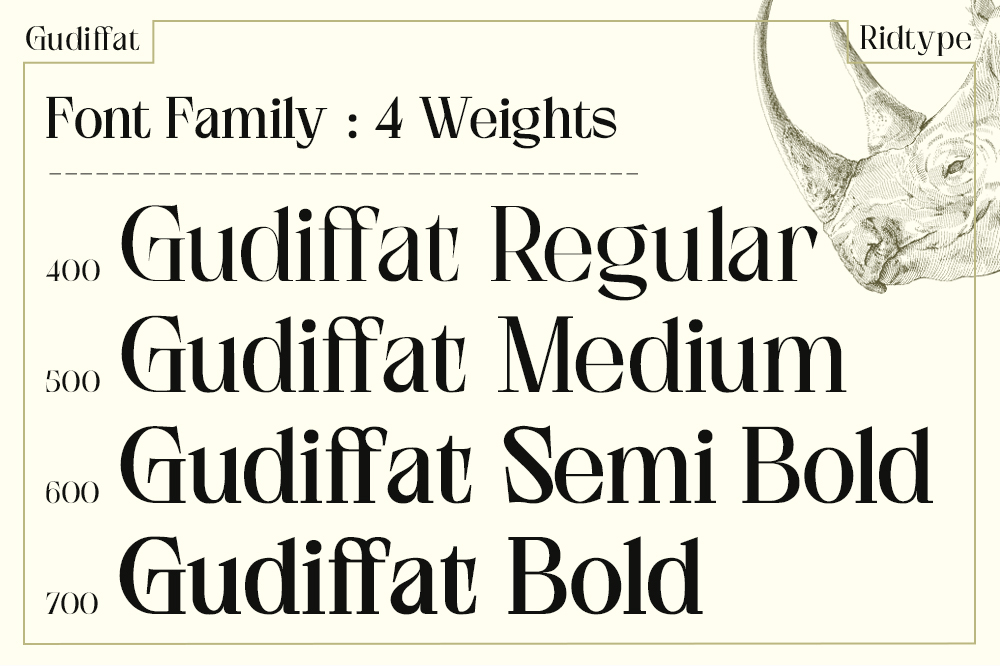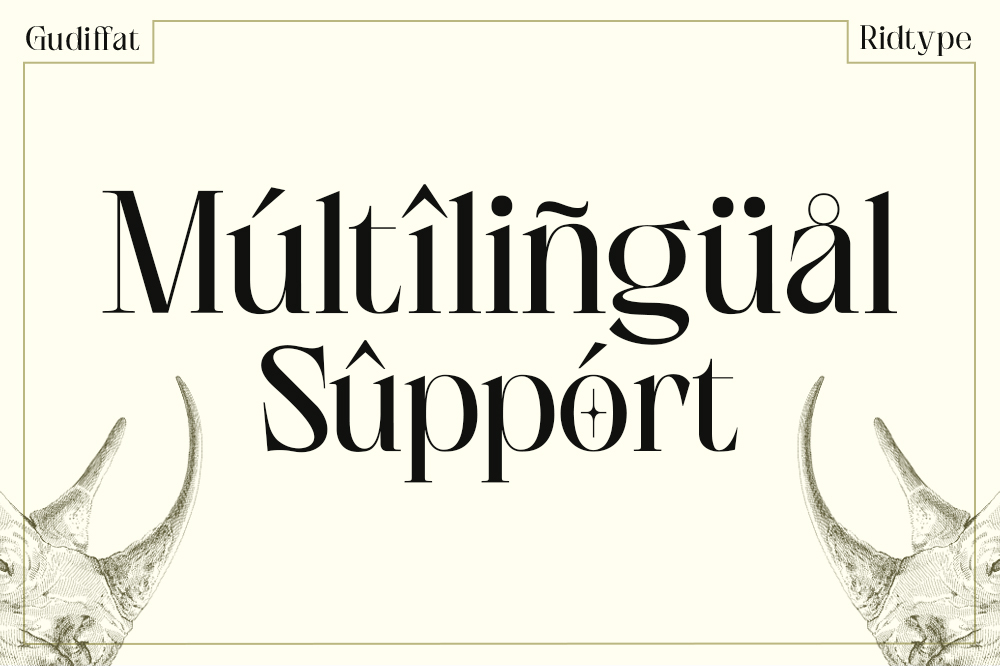
Gudiffat
Gudiffat font was inspired by the Luxurious Lifestyle and Intellectual Brilliance.
This font also has many Alternatives, Ligatures from uppercase - lowercase letters and other supporting character symbols that can be changed as desired.
Details Font : Serif font
Style : 4 Weight (Regular, Medium, Semi-Bold, Bold)